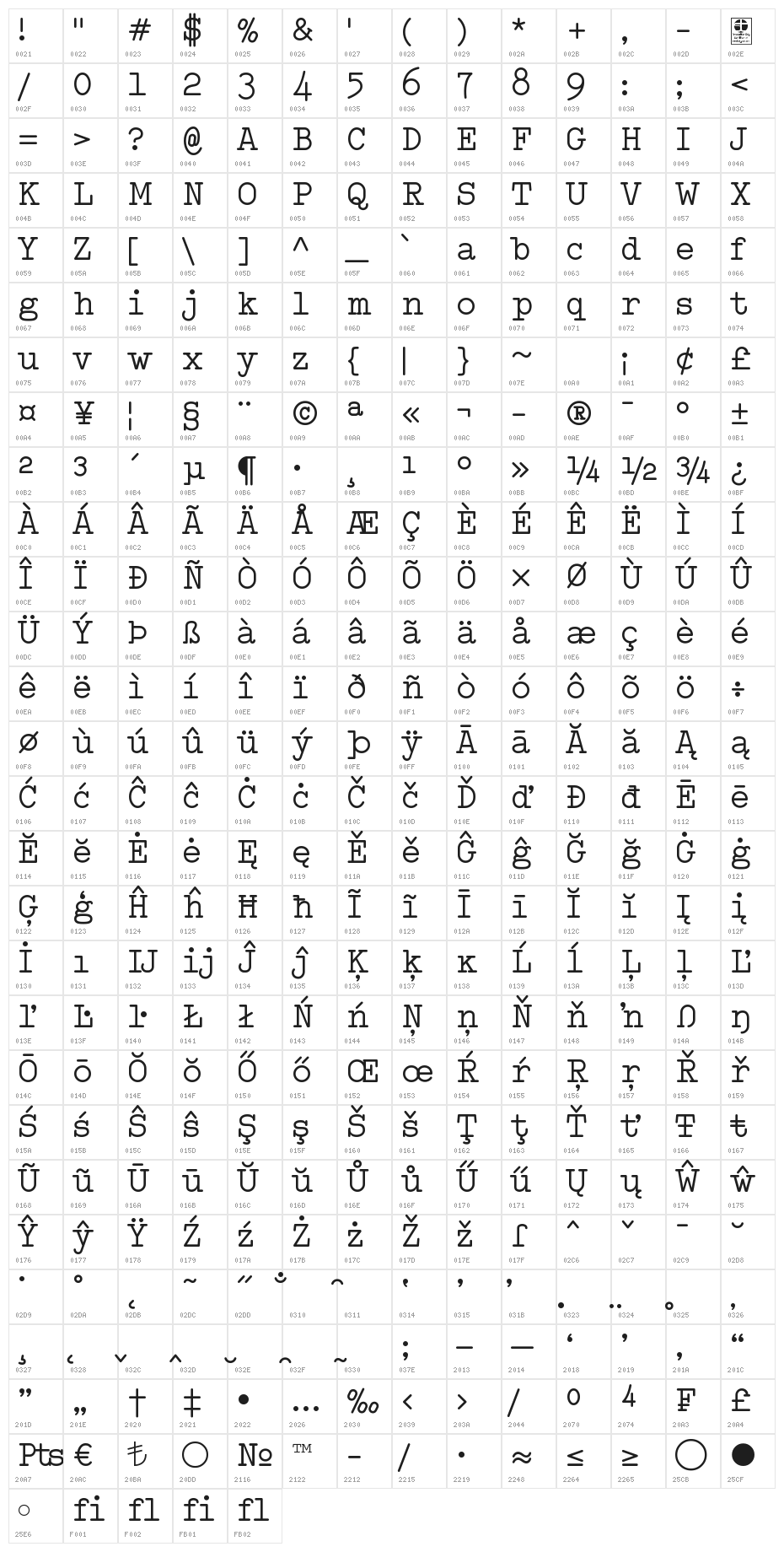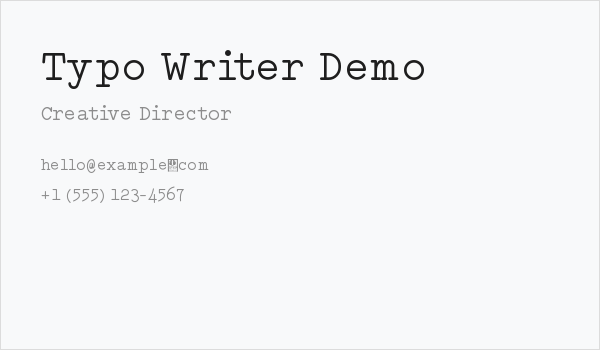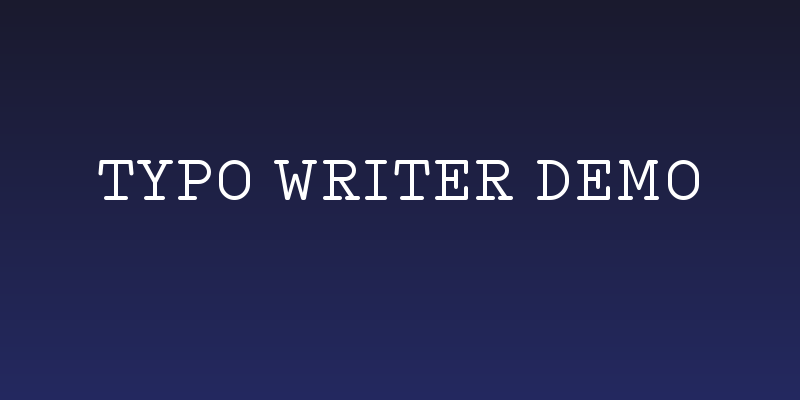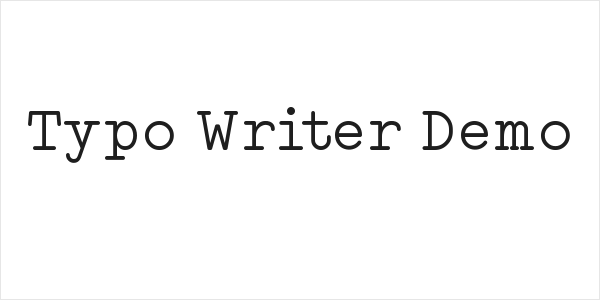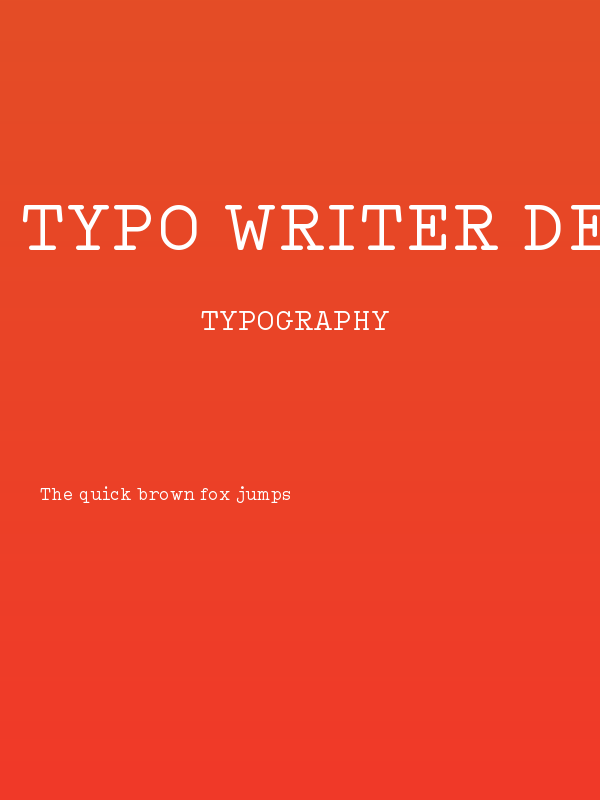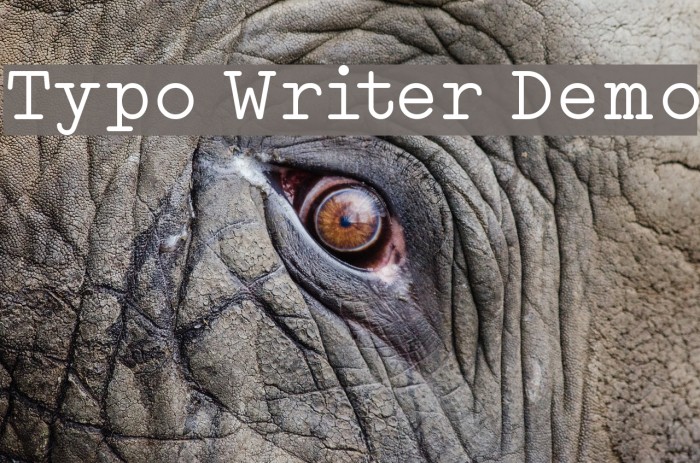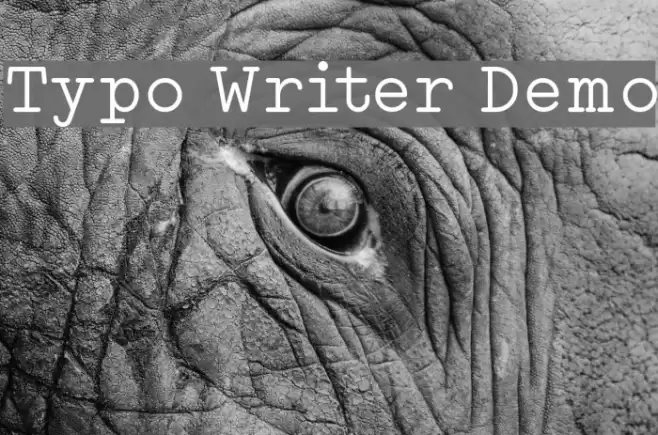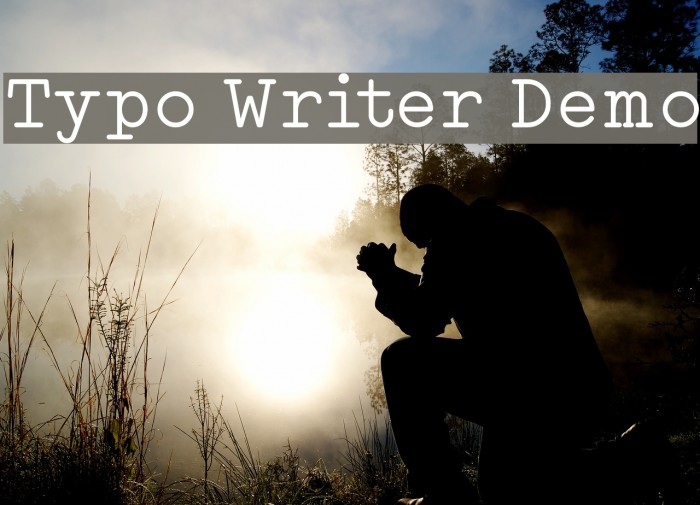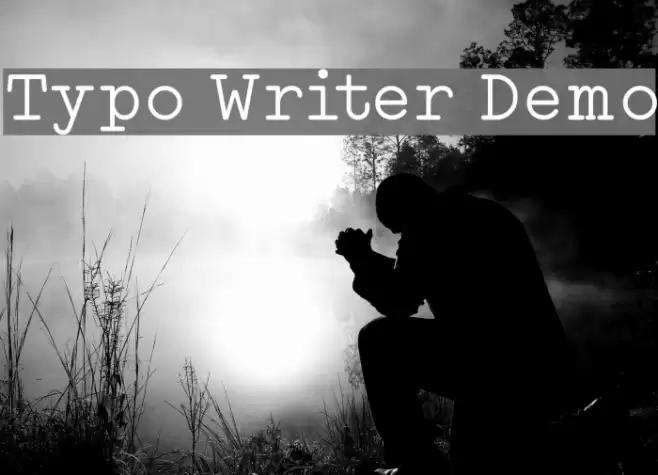
Typo Writer Demo Font
Typo Writer Demo Description
This font embodies a classic typewriter aesthetic with a monospaced design, characterized by uniform character width. Each letter and symbol is crafted with a mechanical precision that evokes the nostalgic feel of vintage typewriters. The strokes are consistent, with a medium contrast that enhances readability while maintaining the distinct typewriter charm. The font includes a full set of uppercase and lowercase letters, numerals, and a variety of punctuation marks and special characters, making it versatile for various applications. Its clean and straightforward design is ideal for projects that aim to convey a sense of authenticity and timelessness.
| Overall Style | Vintage |
| Use Case | Headlines, Body text, Logos |
| Proposed Projects | Ideal for retro-themed designs, coding projects, typewriter-inspired branding, and editorial layouts. |